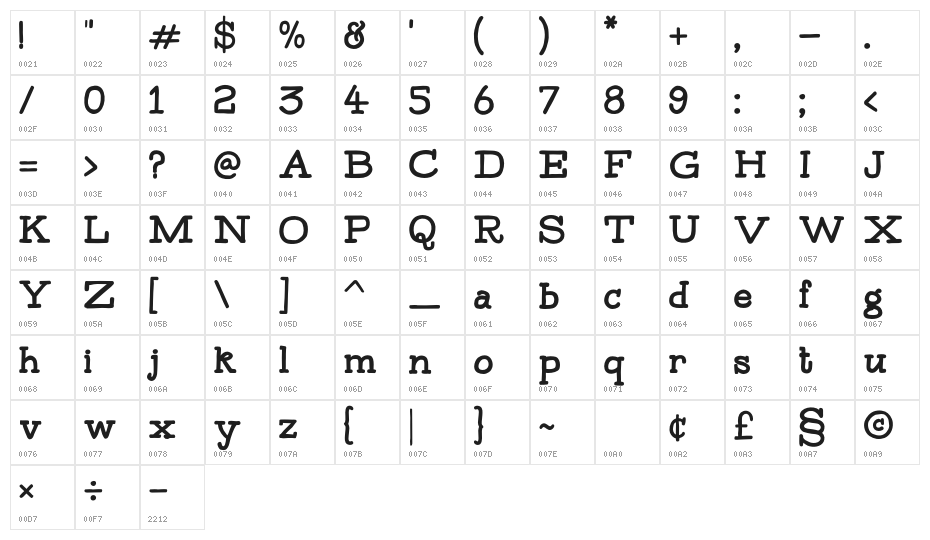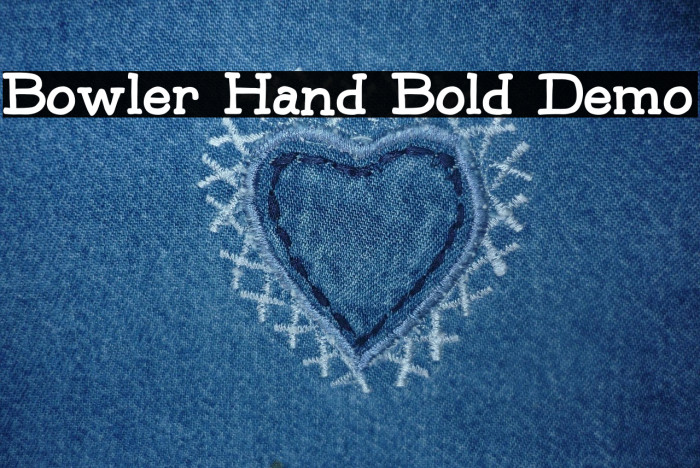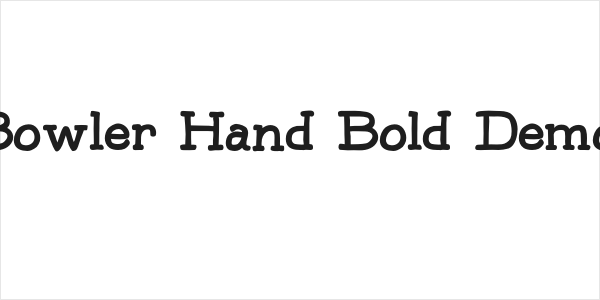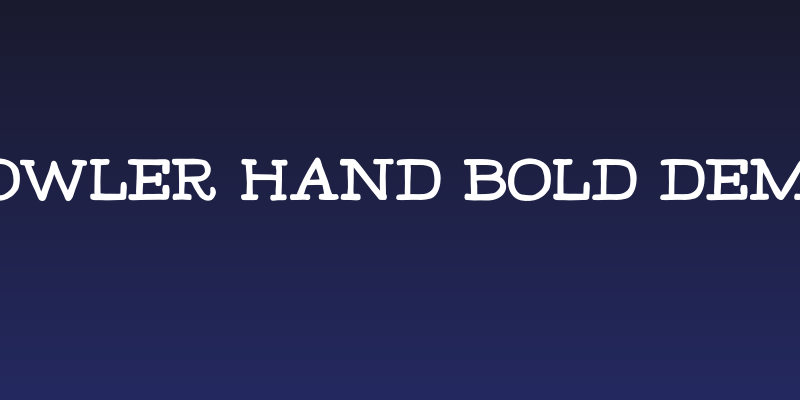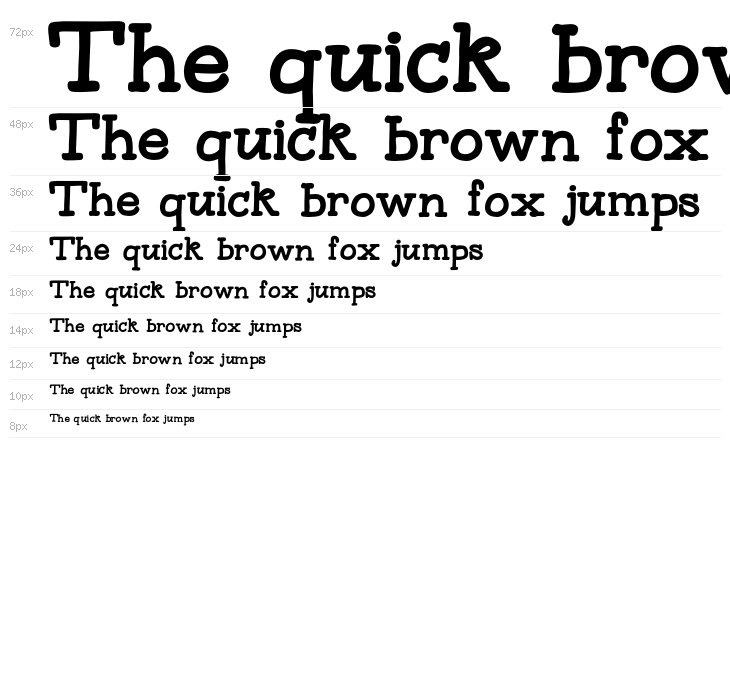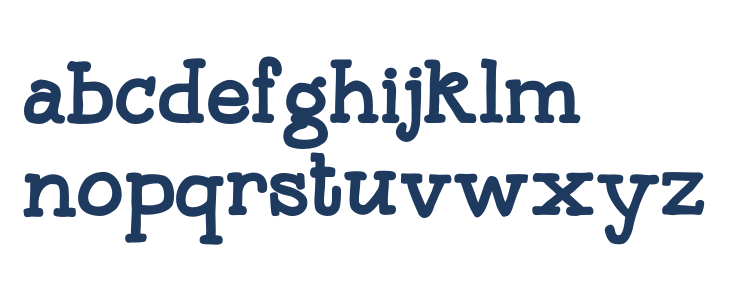
Bowler Hand Bold Demo Font
Bowler Hand Bold Demo Description
This font features a bold and playful design with a hand-drawn aesthetic. The characters are rounded and have a slightly uneven baseline, giving them a whimsical and informal appearance. The uppercase letters are bold and prominent, while the lowercase letters maintain the same playful style with a slightly smaller size. The numerals are consistent with the overall style, featuring rounded edges and a bold presence. Special characters are included, maintaining the same hand-drawn look. This font is ideal for projects that require a fun and approachable feel, such as children's books, playful branding, or creative posters.